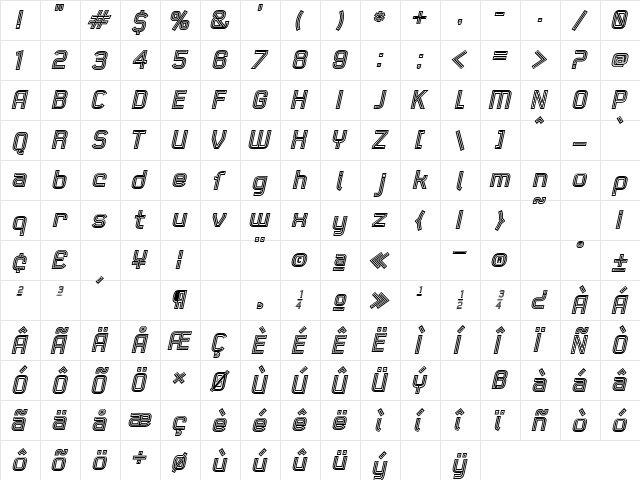
21st OutlineItalic
Design Context for 21st Typeface
21st is built around its visual character rather than neutral utility — its distinctive forms are designed to make an impression at display sizes. Its italic angle brings a sense of urgency and motion to the letterforms.
Font Pairing: Pair with a clean neutral sans-serif for body copy to let 21st's character lead without overwhelming the composition.
Pro Tip: Use 21st exclusively at display sizes — it was designed to be seen, not read at length. Let a neutral companion handle body copy.